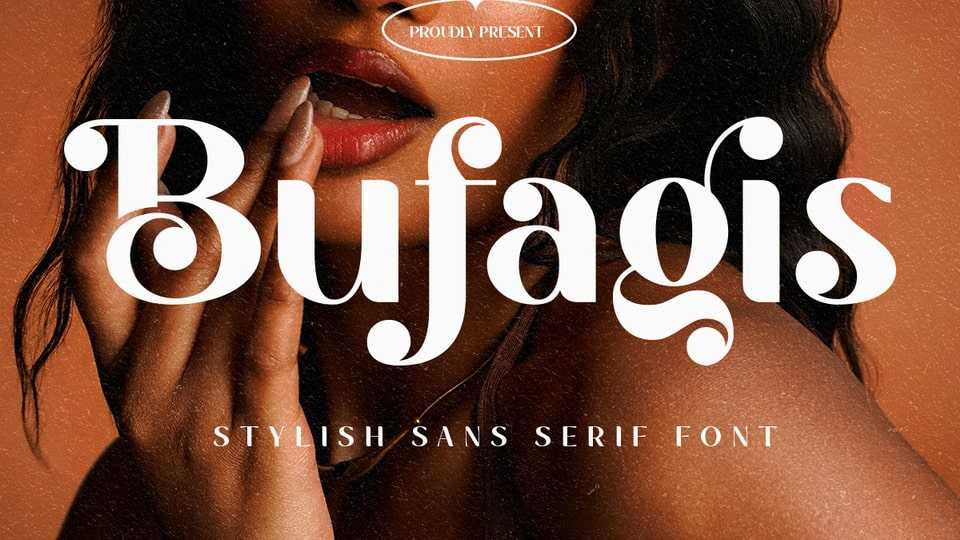
Download Bufagis font, a stylish and elegant sans serif typeface. Bufagis is well-suited for advertising, branding, logotypes, packaging, titles, headlines and editorial design.